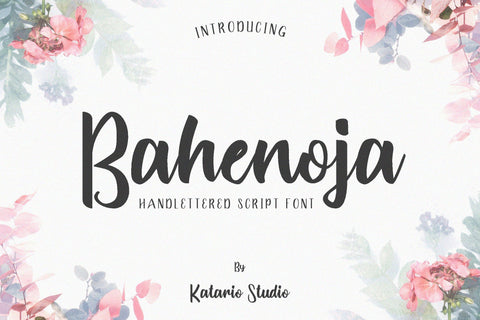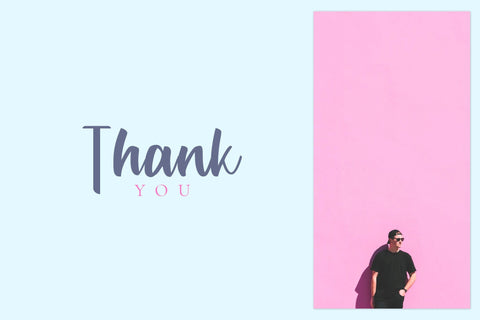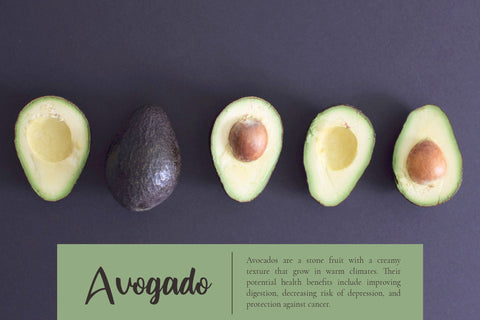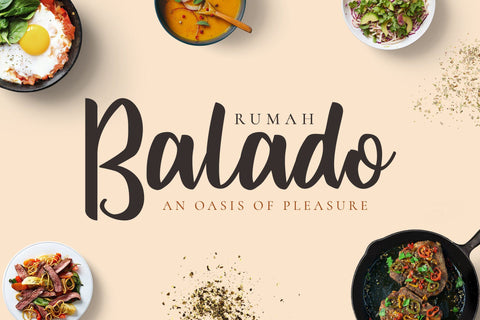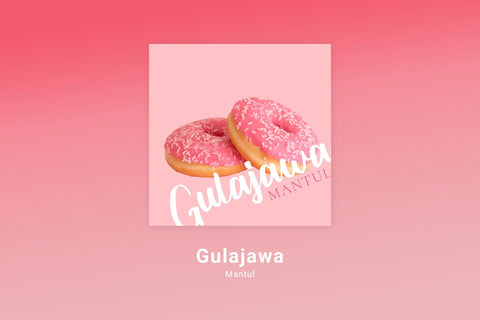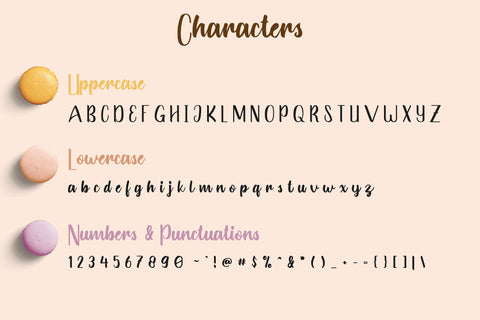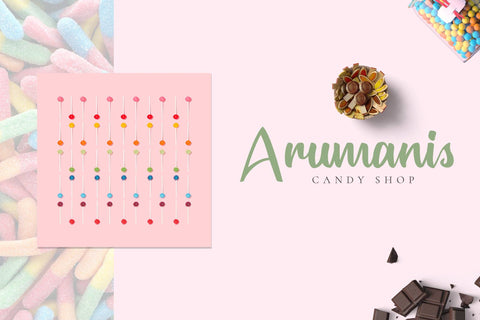
Bahenoja | Handwritten Script Font
Bahenoja is a fresh handwritten font. It’s perfect for branding, social media posts, logos, posters and much more!